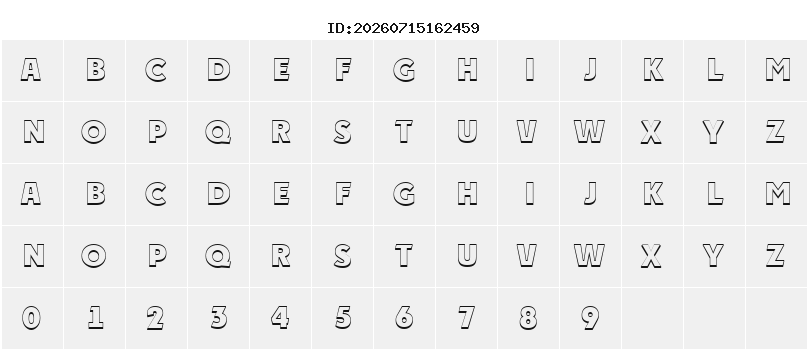
About a_PlakatTitul3D.ttf
a_PlakatTitul3D.ttf is a modern, elegant sans-serif font designed for ultimate readability and visual harmony. Perfect for branding, headlines, web design, and print materials.